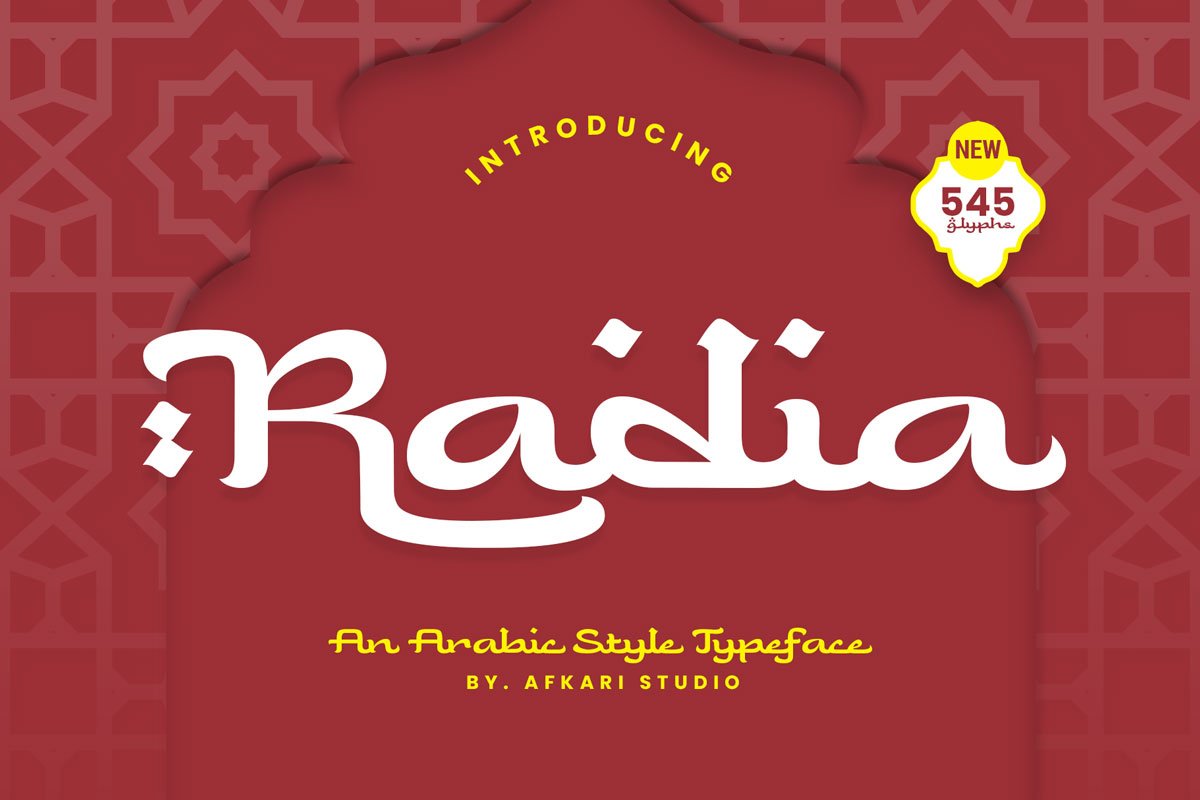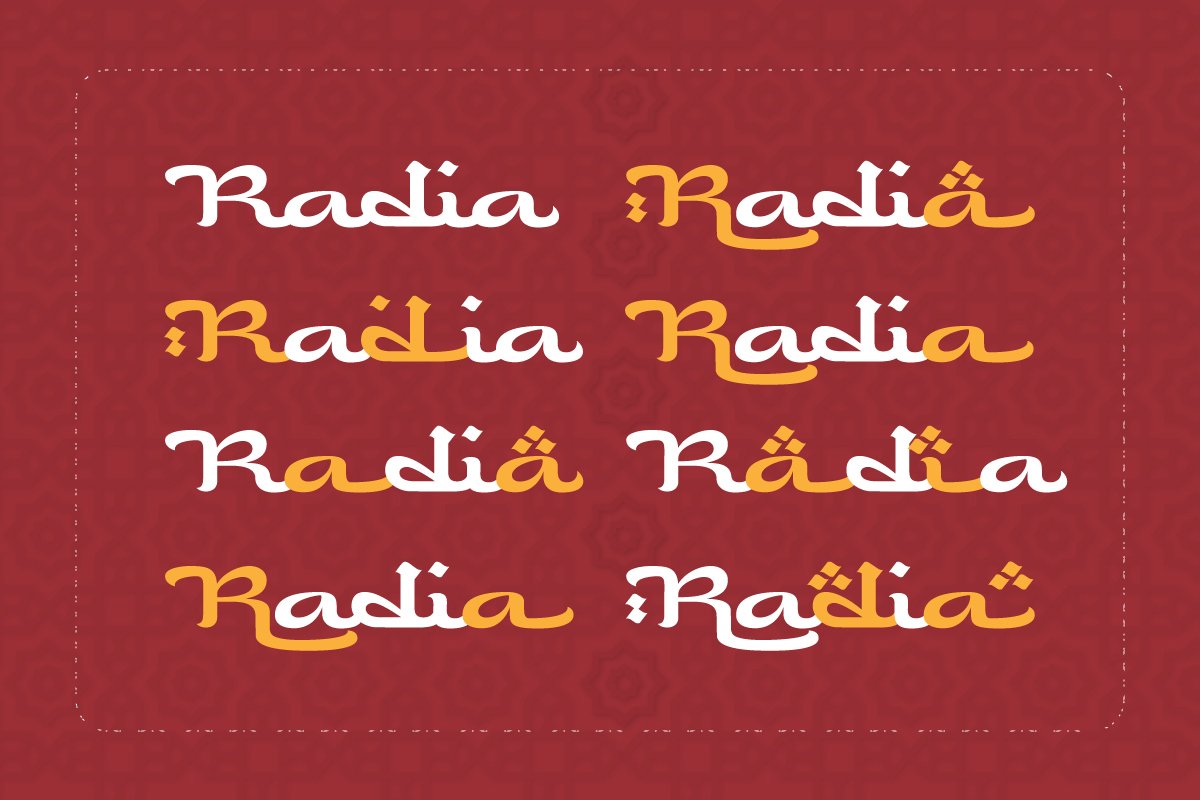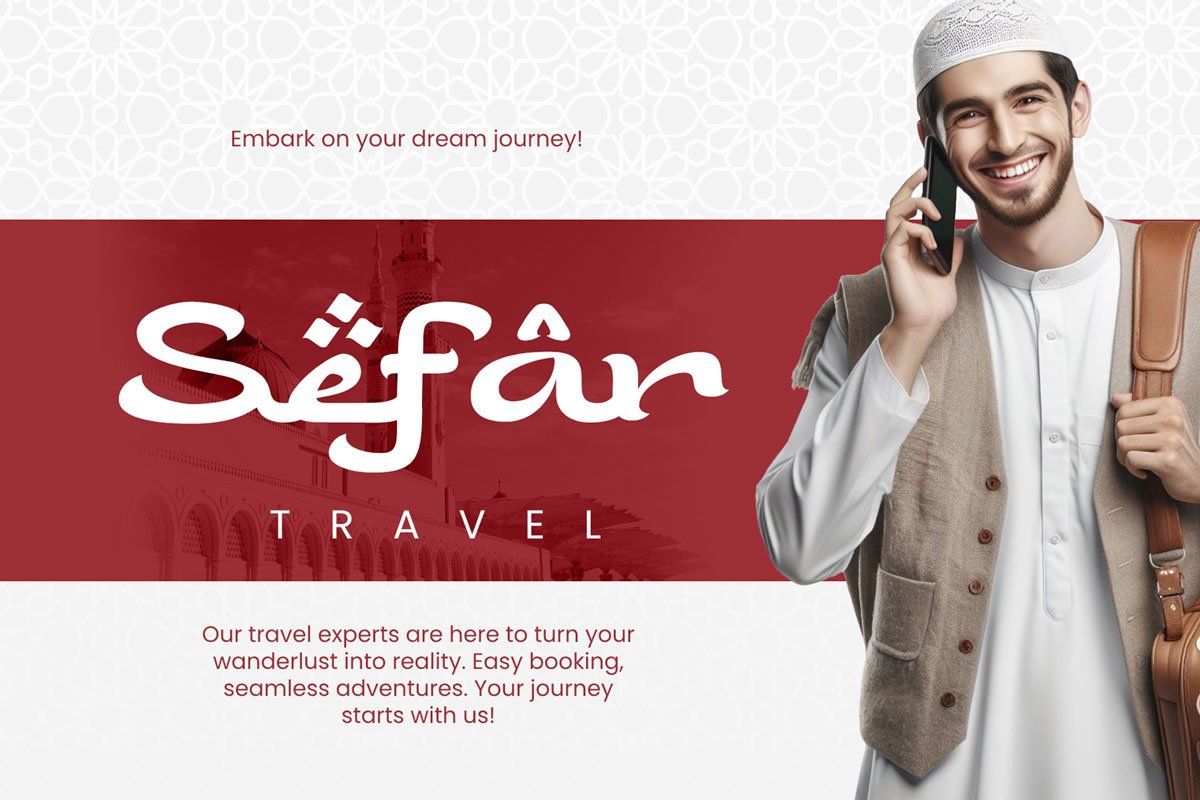
Introducing Radia, a captivating Arabic-style typeface that embodies the essence of Ramadan and Islamic design. Immerse your projects in the rich cultural heritage of Arabic calligraphy with this exquisite font. Radia is meticulously crafted to infuse every text with an authentic Arabic feel, making it an ideal choice for graphic design projects centered around Islamic or Arabic themes.
Radia